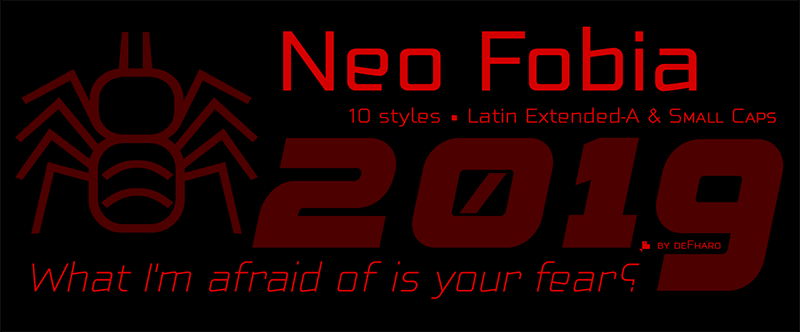
Neo Fobia is a sans serif typeface that includes letters in small caps, 10 exclusive fonts with square proportion of futuristic style with a geometrical design of maximum readability with a minimalist aspect. 2019 Neo Fobia is a very versatile typeface for graphic design and advertising, you can use it in poster design, video games, film titles, logos, brand design, etc. ======================= FULL VERSIONS & LICENSES: https://defharo.com/fonts/neo-fobia/ |